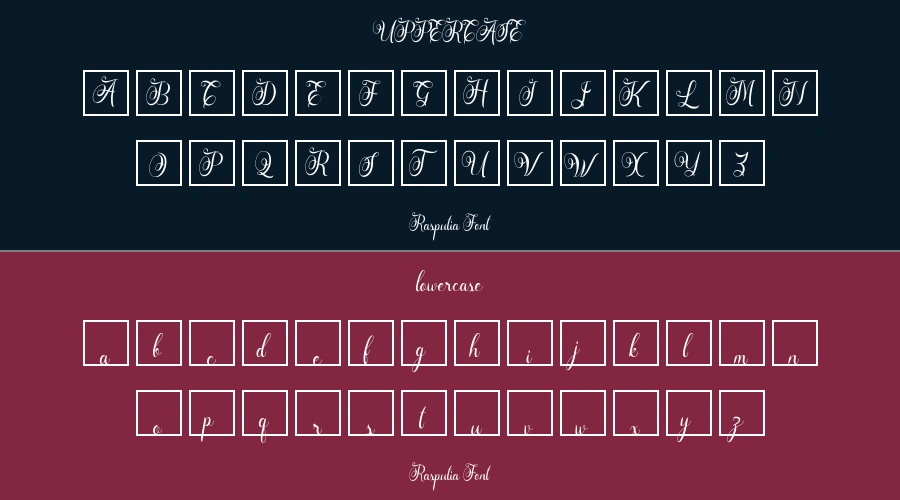
About Rasputia Font
Rasputia Font embodies typographic excellence through its masterful combination of angled joins and technical accuracy. Created for environmental graphics, this typeface delivers exceptional functionality and technical merit across all applications. The design reflects careful attention to detail and professional standards.
Advanced capabilities include distinctive terminals and versatile display figures, giving designers creative control. When used in formal invitations, Rasputia Font exhibits remarkable kerning accuracy. The harmonious balance between counter shape and educational suitability sets this typeface apart.